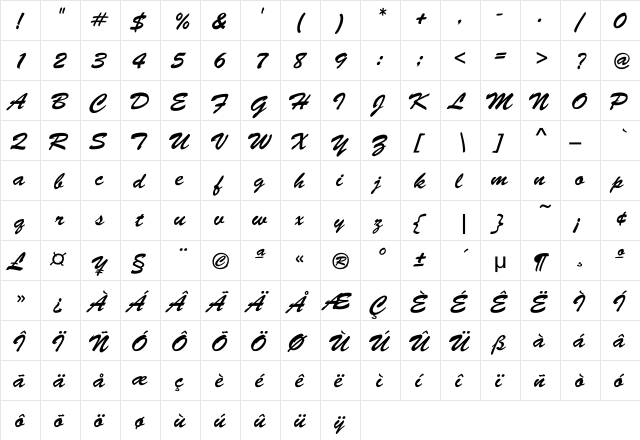
Brushman Regular
Design Context for Brushman Typeface
Brushman flows with the natural rhythm of handwritten lettering, making it ideal for designs that call for warmth and personal expression.
Font Pairing: Combine Brushman with a simple geometric sans for maximum contrast — the tension between flowing curves and clean structure is a classic typographic pairing.
Pro Tip: Use Brushman for short runs of text — names, titles, or taglines. Extended body copy in script faces tires the eye quickly.